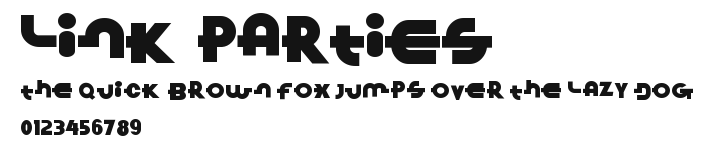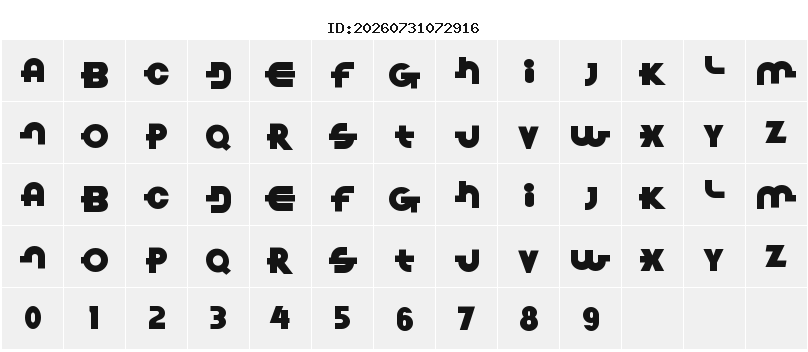
Link Parties Preview
• Font Name: Link Parties
• Full Font Name: Link Parties
• Version: Version 1.00 September 7, 2013, initial release
About Link Parties.ttf
Link Parties.ttf is a modern, elegant sans-serif font designed for ultimate readability and visual harmony. Perfect for branding, headlines, web design, and print materials.